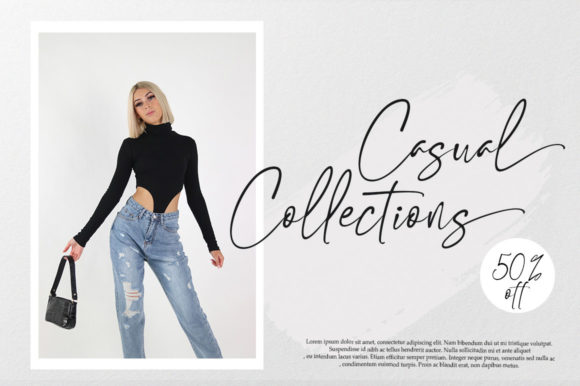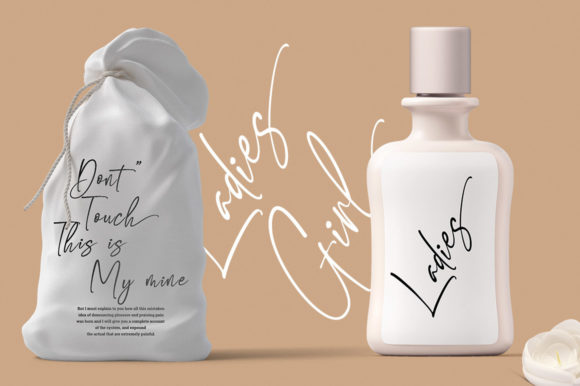
Classic Girl Font
db-ku.com - Script & Handwritten -- Classic Girl is a unique, elegant, and modern handwritten font. This hand-styled look makes it perfect to use in all your design projects logos, labels, packaging designs, blog titles, posters, wedding designs, social media posts, social media designs, etc.